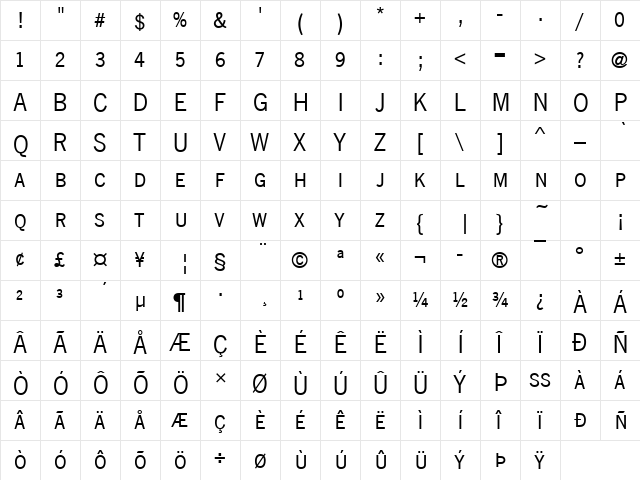
News Gothic Becker Discaps Regular Font Preview
News Gothic Becker Discaps Regular
Design Context for News Gothic Becker Discaps Typeface
News Gothic Becker Discaps has the quiet confidence of well-executed sans-serif typography: versatile, unobtrusive, and dependable at any size.
Font Pairing: Works well alongside a characterful serif or display font that can carry the expressive load while News Gothic Becker Discaps handles the functional copy.
Pro Tip: Pair News Gothic Becker Discaps with a display or serif font for headlines — its neutral character makes it an excellent supporting player in complex typographic systems.